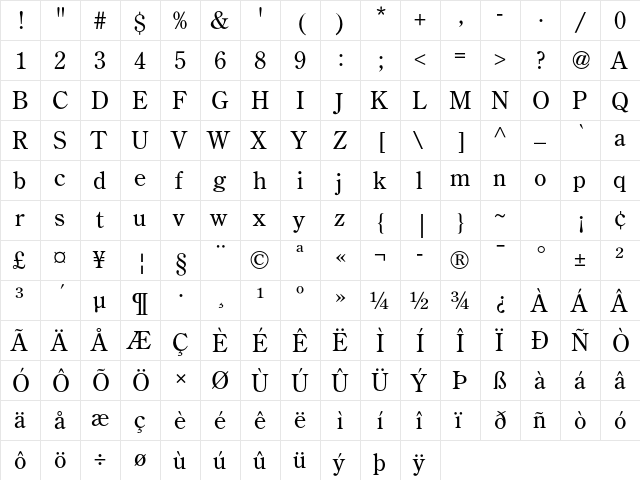
Century Old Style Std Regular
| Designer | Morris Fuller Benton |
Design Context for Century Old Style Std Typeface
Century Old Style Std offers clean, dependable letterforms without strong stylistic allegiance, making it a practical choice for designers who need flexibility.